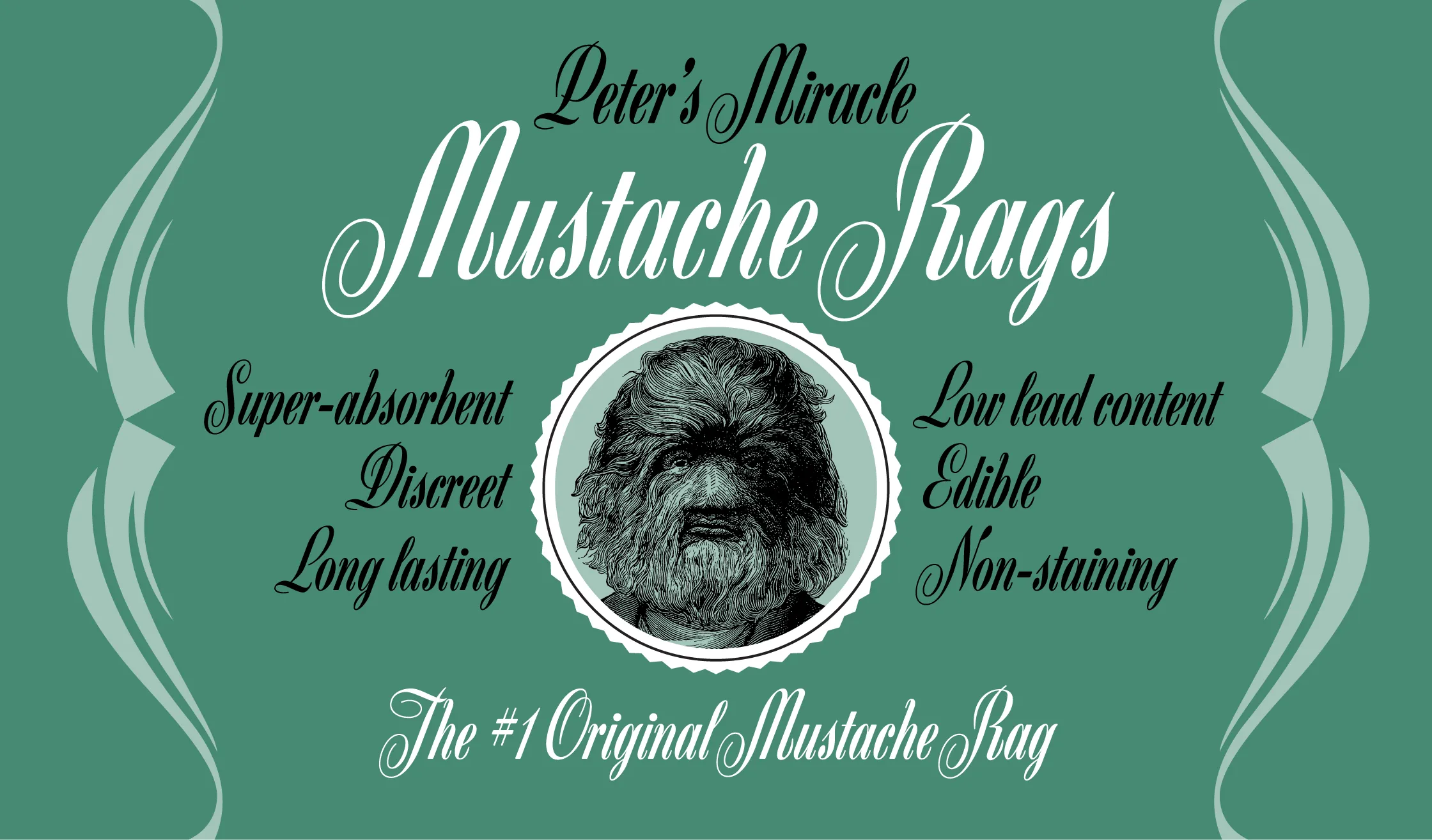
Filmotype Zanzibar Font
The Filmotype Zanzibar Font is perfect for vintage movie titles, retro advertising campaigns, classic cinema posters, nostalgic brand identities, authentic 1950s designs, mid-century modern graphics, vintage sign painting reproductions, classic typography exhibitions, period-accurate film productions, and distinguished retro communications.
What makes the Filmotype Zanzibar Font so exciting is its authentic preservation of mid-century Filmotype craftsmanship with genuine phototypesetting heritage that creates an unmatched connection to the golden age of commercial typography and advertising design. This iconic typeface features classic Filmotype construction, period-accurate character proportions, and authentic mid-century design elements that perfectly capture the essence of vintage advertising culture and commercial typography excellence. The font's vintage personality and Filmotype authenticity make it an exceptional choice for retro brands, vintage enthusiasts, and design historians seeking to communicate period accuracy, commercial heritage, and authentic mid-century advertising appeal with genuine typographic credibility.
The Filmotype Zanzibar Font family includes vintage variations and period alternates, featuring classic Filmotype weights, authentic character options, and mid-century styling elements. Each variation maintains the signature vintage appeal while offering different levels of period expression and Filmotype authenticity, giving designers extensive creative possibilities for crafting genuine retro communications and authentic vintage brand personalities that honor mid-century commercial typography traditions.
The authentic vintage characteristics of Filmotype Zanzibar Font showcase masterful commercial typography preservation, with each letter featuring genuine Filmotype construction elements and mid-century design details that enhance its period credibility and commercial authenticity. The font's comprehensive character set includes uppercase and lowercase letters, numerals, vintage punctuation, and commercial symbols, ensuring complete functionality for diverse retro projects and international vintage applications.
Specifically designed for both digital and print vintage applications, this remarkable font maintains its Filmotype character and commercial heritage across all sizes and formats. From large-scale retro displays to detailed vintage reproductions, Filmotype Zanzibar Font performs exceptionally while preserving its distinctive mid-century personality and authentic commercial typography appeal.